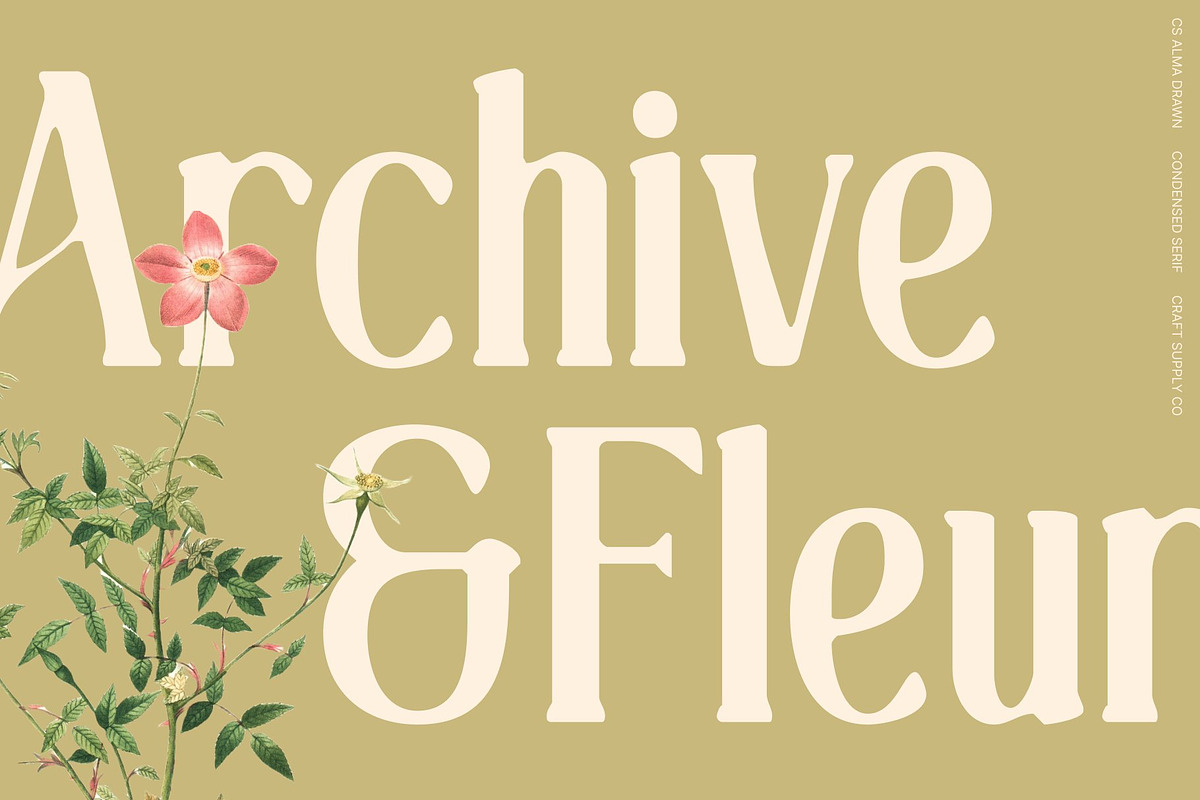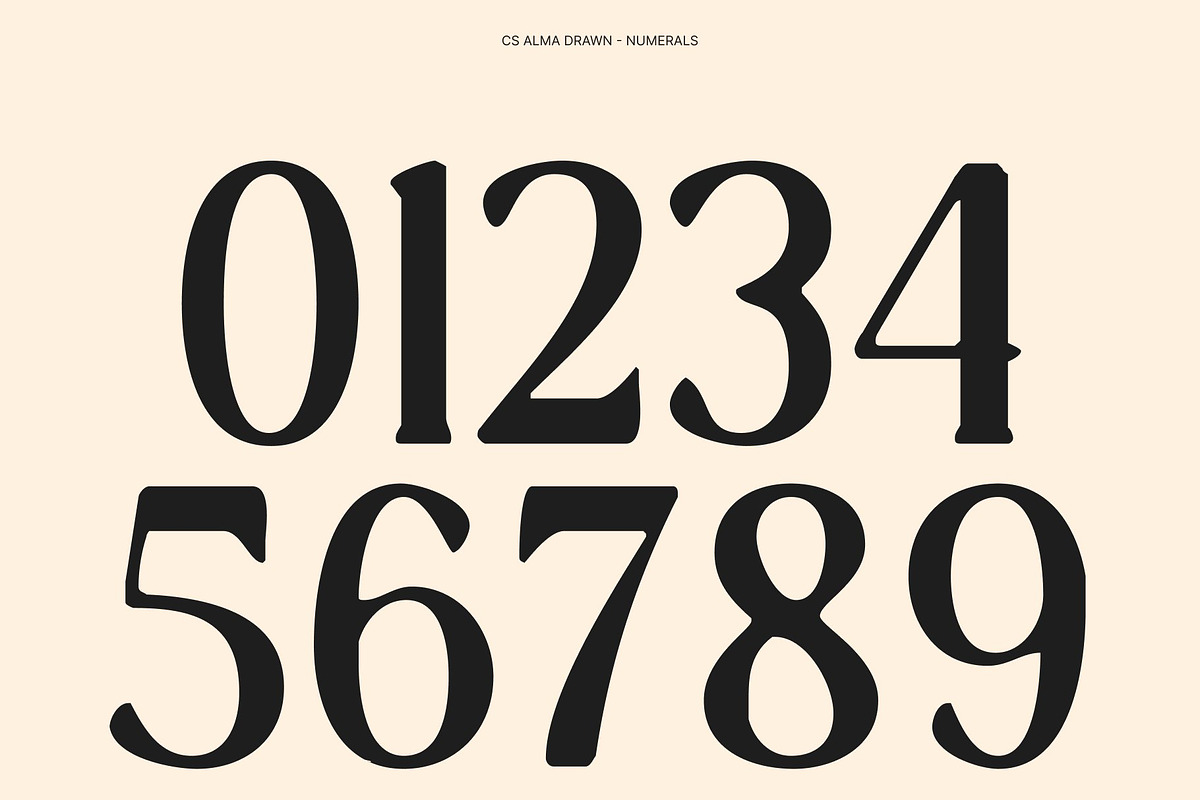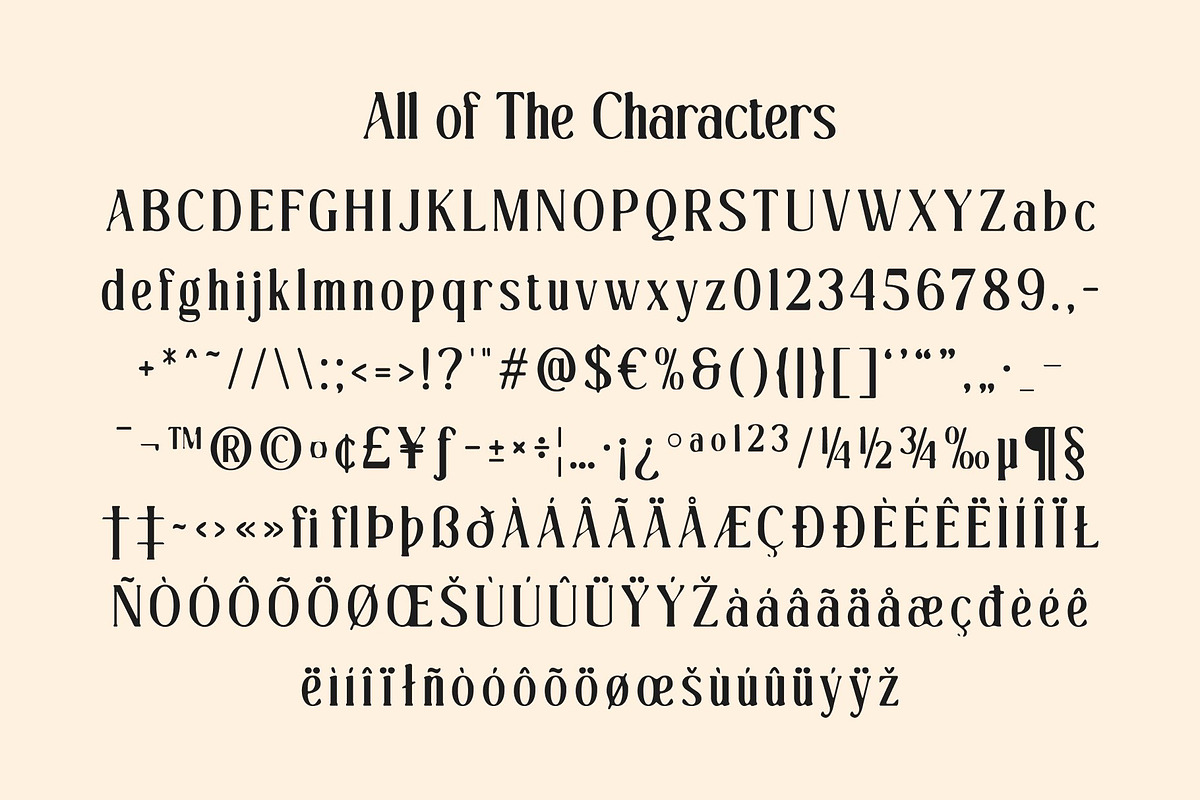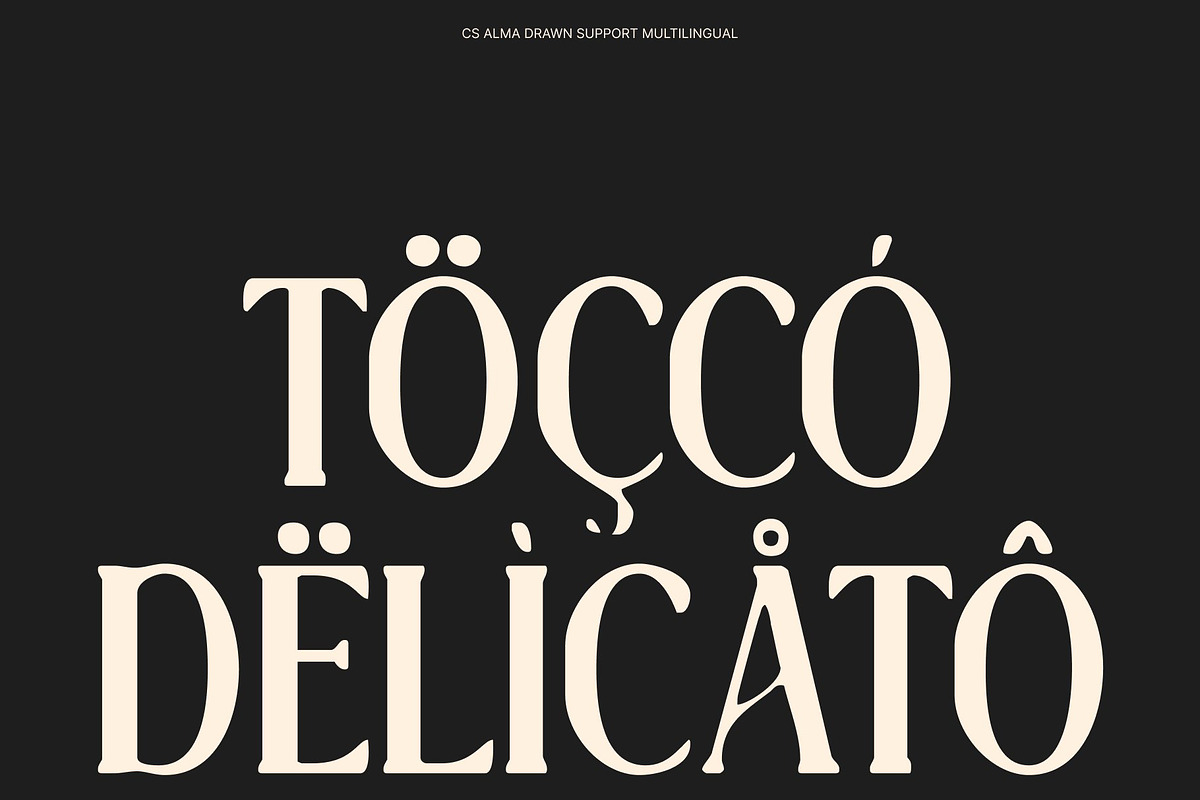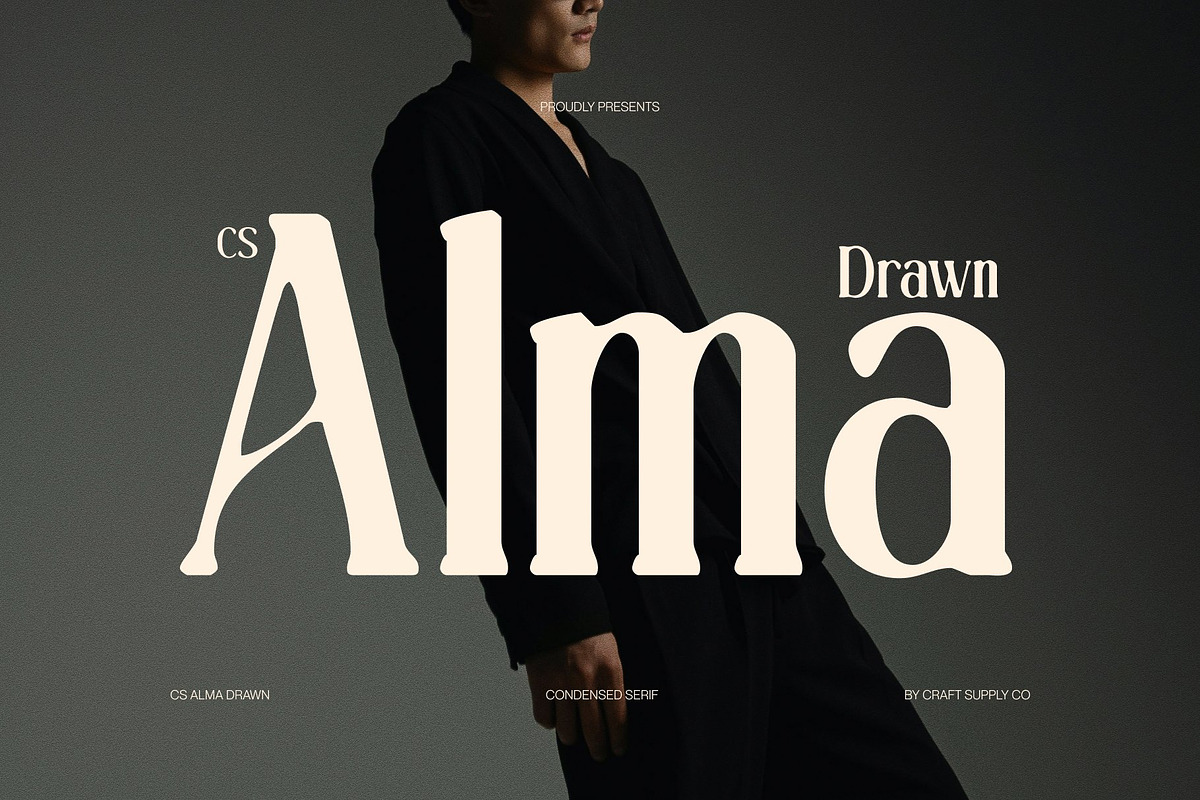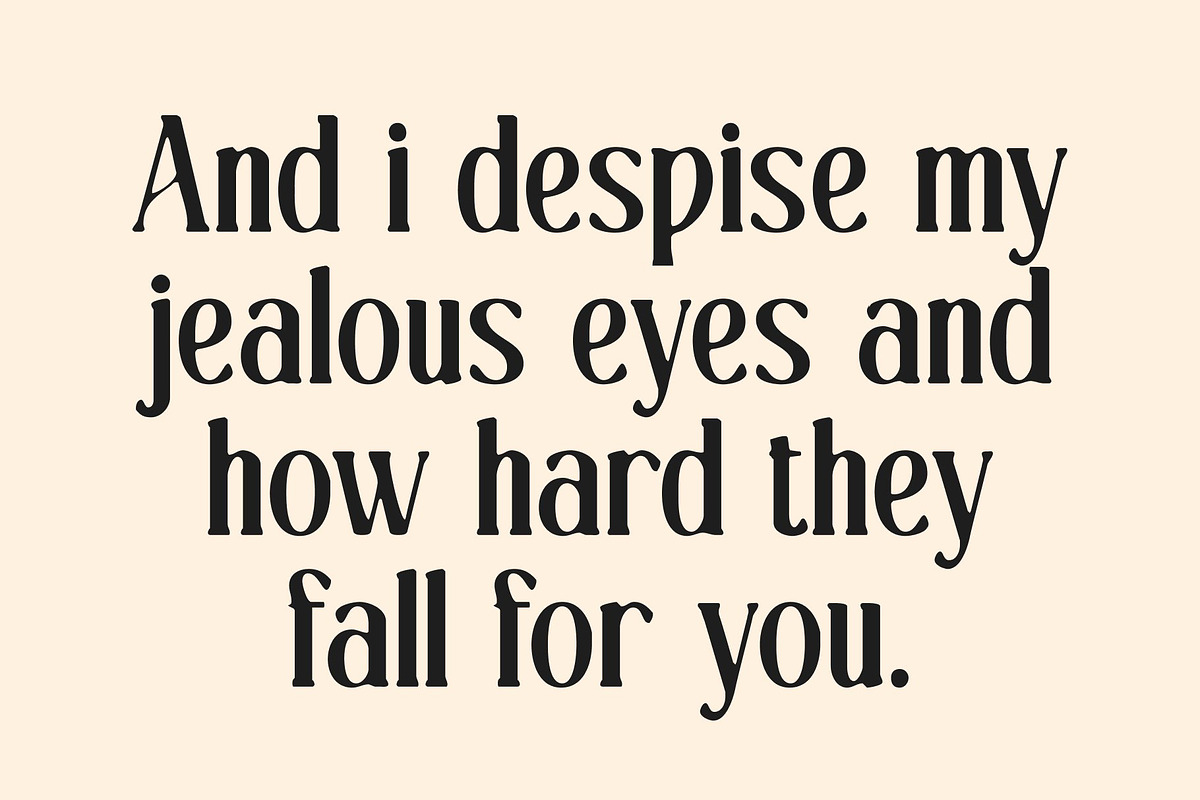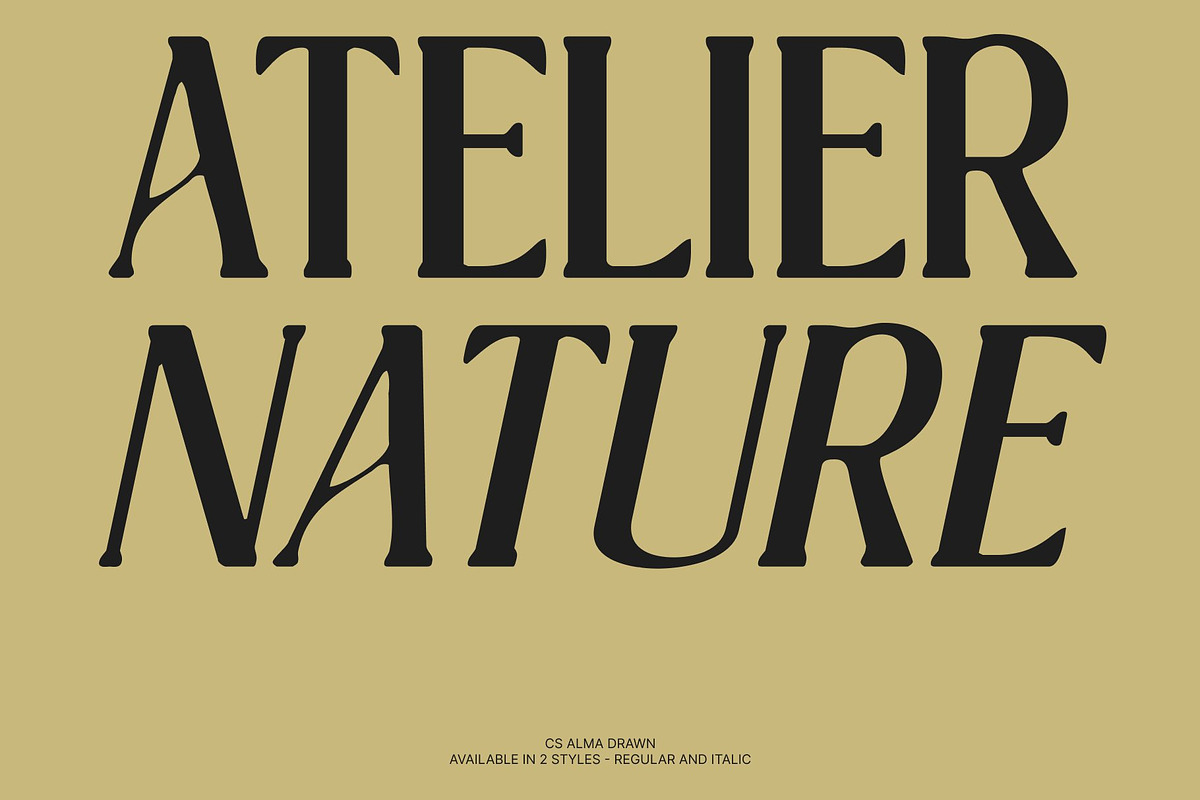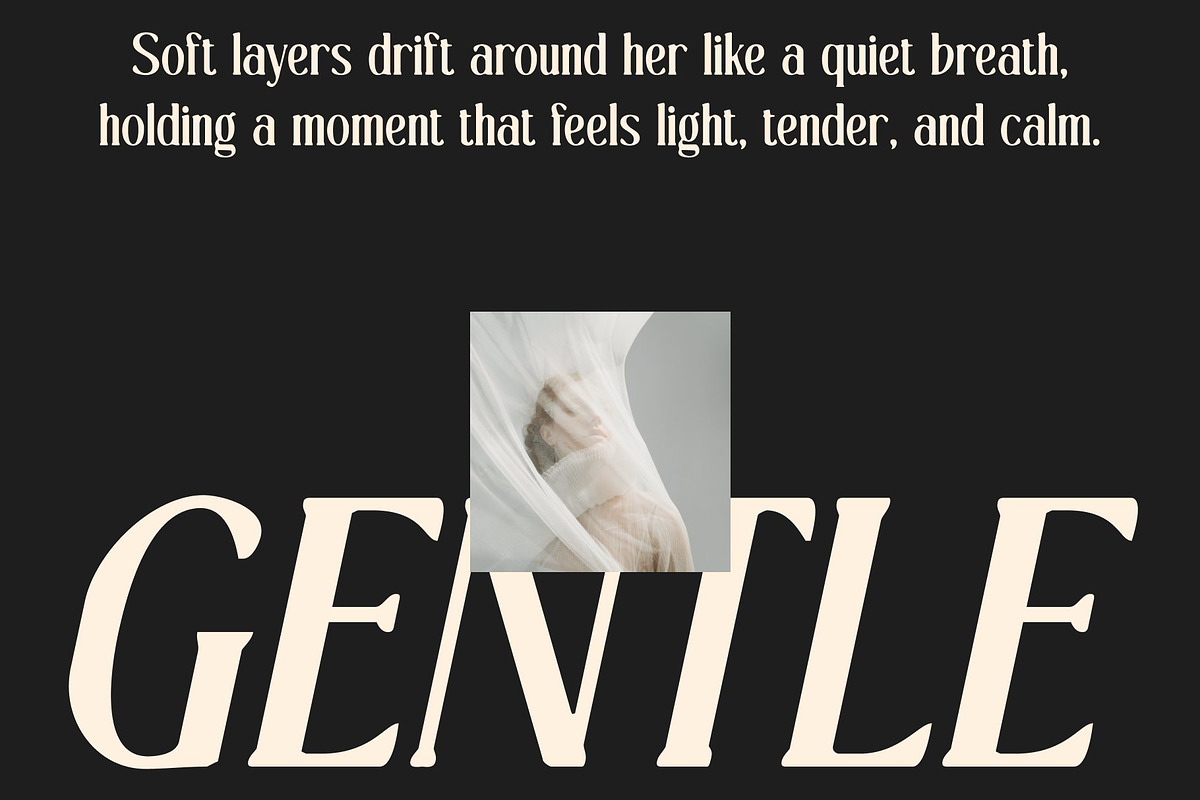
CS Alma Drawn
CS Alma Drawn – Condensed Modern Serif with Contemporary Elegance
Condensed Modern Serif with Artistic Handcrafted Touch This is a condensed modern serif font designed to express elegance through refined proportions and a contemporary structure, now enriched with a subtle drawn texture. Its narrow letterforms create a strong vertical rhythm, while the handcrafted finish softens the precision, adding warmth and individuality.
Long, Slim Serifs with Soft Drawn Detail The defining feature of this font lies in its long, slim serifs, enhanced by a gentle drawn effect. These elegant extensions add luxury and finesse, while the textured strokes introduce a natural, human touch. This balance between delicacy and imperfection gives each character a graceful flow that feels refined yet expressive, maintaining clarity without appearing rigid.
Contemporary Form with Unique Elegant Character Blending classic serif elegance with modern sensibility, this font feels fresh, stylish, and fashion-forward. The condensed structure delivers a strong visual presence, while the drawn texture adds uniqueness and charm. This combination creates a font that stands out subtly, offering personality without overwhelming the overall design.
Perfect for Luxury, Editorial, and Creative Branding Ideal for luxury branding, editorial layouts, posters, and premium packaging, this font excels in headlines and refined typographic compositions. Its elegant condensed form paired with a soft, artistic finish makes it perfect for fashion campaigns, magazines, modern branding, and creative projects that seek sophistication with a distinctive handcrafted feel.
- CS Alma Drawn Regular
- CS Alma Drawn Italic